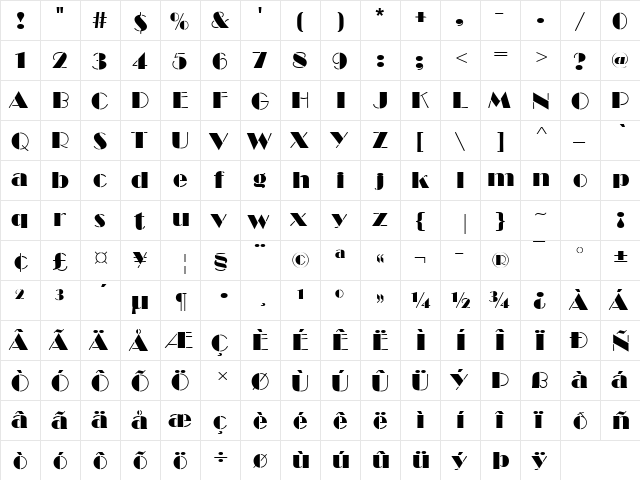
BroadwaySteD Regular
Design Context for BroadwaySteD Typeface
BroadwaySteD is a composed and adaptable typeface that performs quietly and consistently across a wide range of design contexts.
Pro Tip: Use BroadwaySteD in both headline and body roles to test its range before committing to a single application.